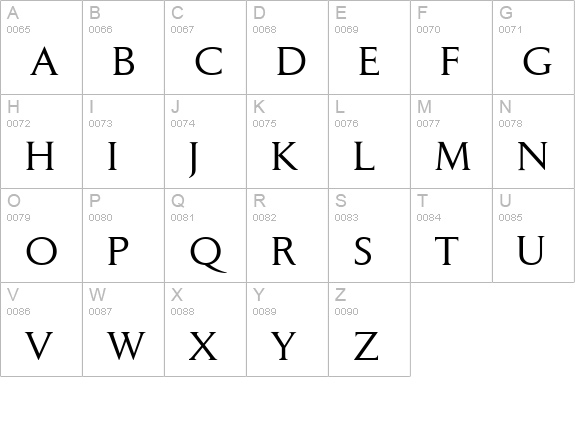
Daily News Regular is the standard, neutral variant in the Daily typeface family \xE2\x80\x94 well suited to general body text, paragraphs, and standard typographic work.
Introducing Daily News Regular font, a versatile typeface that exudes elegance and professionalism. This font is perfect for a wide range of design projects, from editorial layouts to branding materials. With its classic and clean letterforms, Daily News Regular adds a touch of sophistication to any text. What sets Daily News Regular apart is its accessibility - it is available for free download at FontsMarket.com. This means that designers, students, and anyone in need of a reliable font can easily access and incorporate Daily News Regular into their work without any cost. Its freely available nature makes it an excellent choice for those on a budget or looking to experiment with typography. Daily News Regular offers a balanced mix of legibility and style. Its well-defined characters ensure readability, while its subtle details and subtle curves add a touch of personality. This font is ideal for headlines, subheadings, body text, and more, allowing you to create cohesive and visually appealing designs with ease. Whether you're working on a magazine layout, a website design, or a business presentation, Daily News Regular is a go-to font that will elevate your project to new heights. Its versatility and timeless appearance make it suitable for various industries, including fashion, finance, technology, and more. Don't miss out on the opportunity to enhance your design work with Daily News Regular font. Join thousands of designers who have already discovered its beauty and functionality. Visit FontsMarket.com today and download this exceptional font for free. With Daily News Regular, you'll have a reliable and stylish typographic tool at your fingertips.